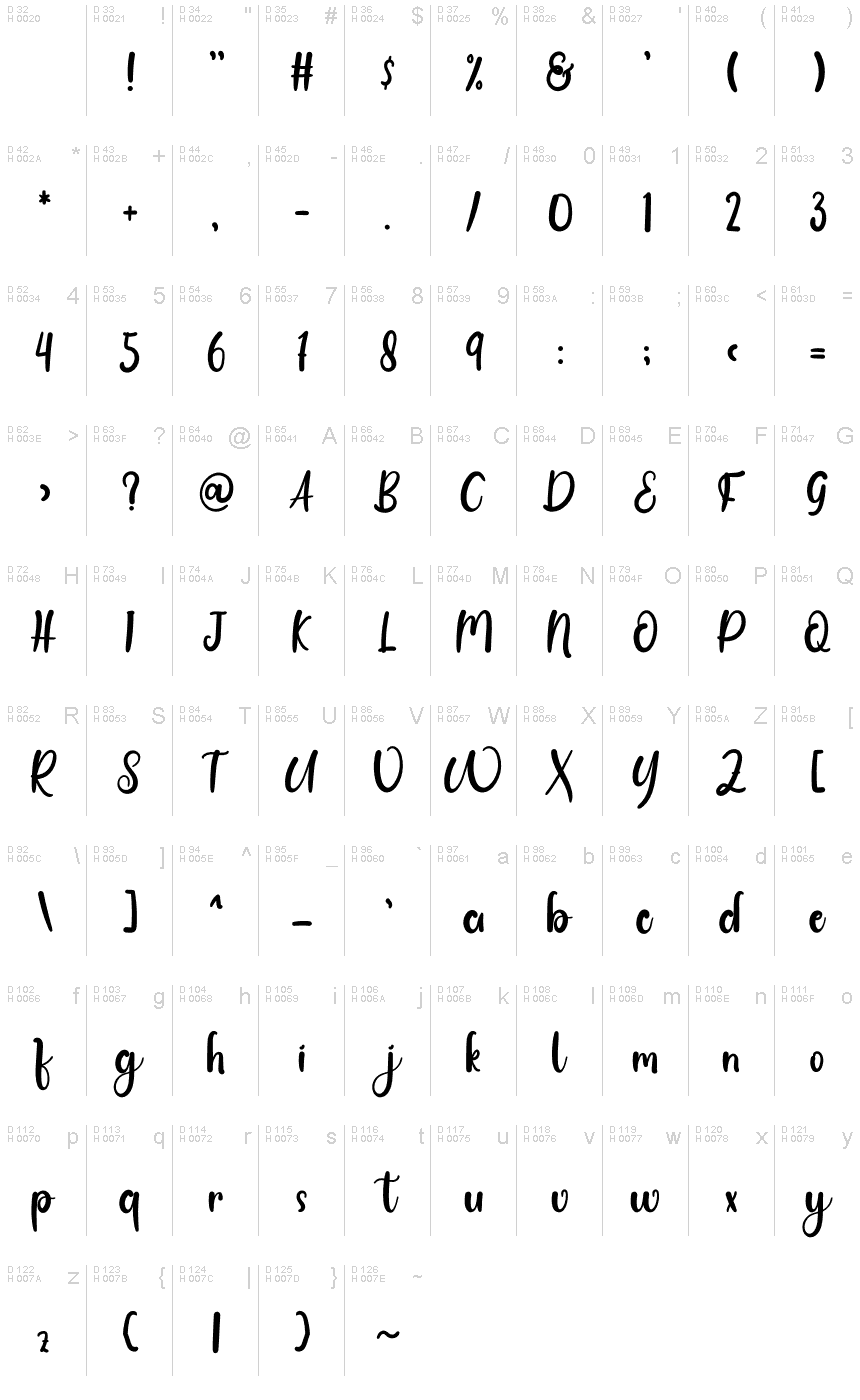
Sister
Sister, a captivating handwritten font by PiPi Creative, brings a touch of warmth and authenticity to your creative projects. With its semi-bold weight and semi-condensed width, this font strikes the perfect balance between boldness and elegance.
Ideal for various design projects, Sister is suitable for crafting eye-catching logos that exude a personal touch. Its playful yet refined style also lends itself well to creating stunning social media graphics that effortlessly stand out from the crowd.
Pair Sister with vibrant colors and whimsical illustrations to breathe life into your invitations or greeting cards, setting the tone for unforgettable events. Whether you're working on branding materials or personalizing your blog posts, this font adds an irresistible charm while ensuring legibility.